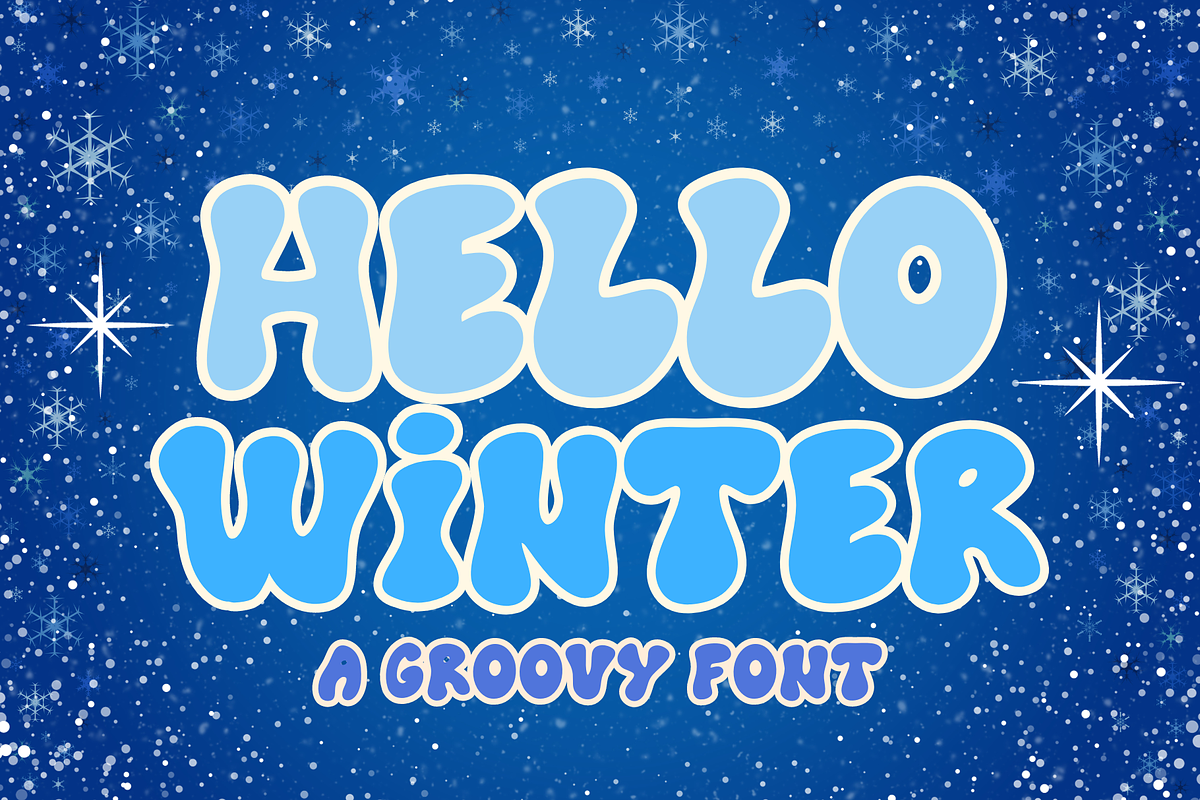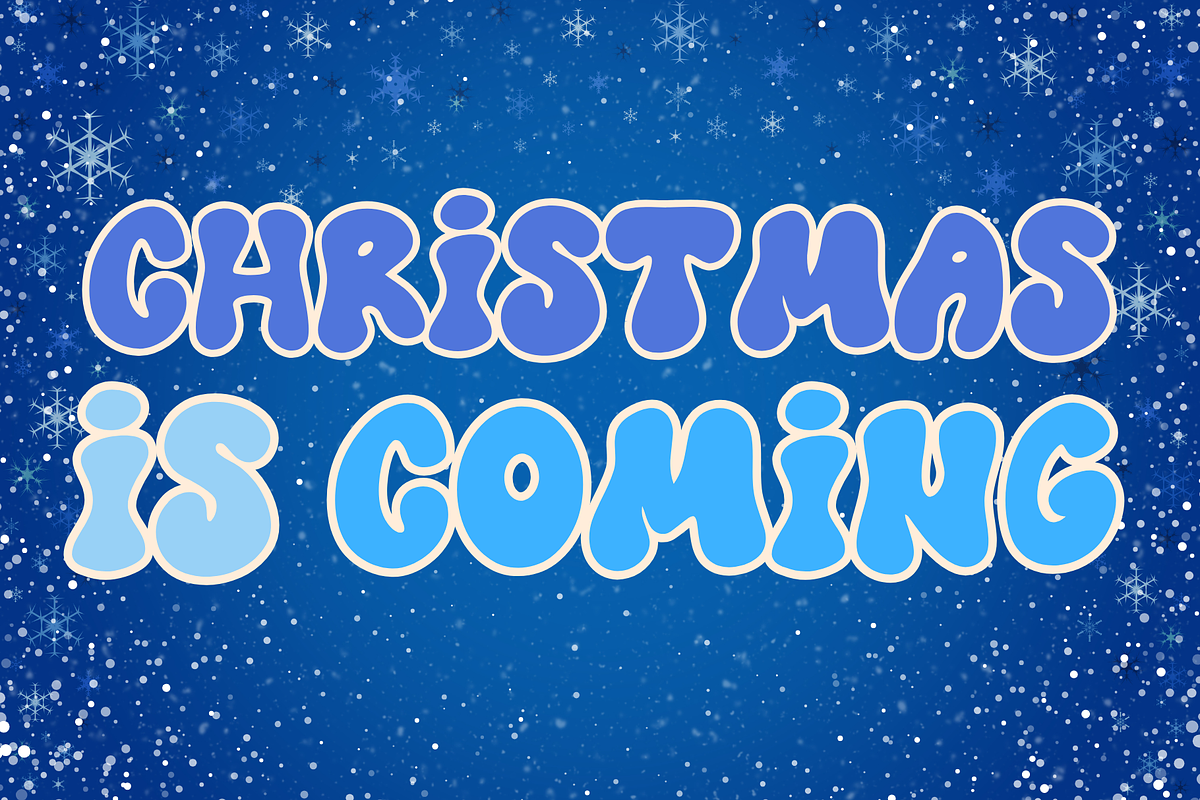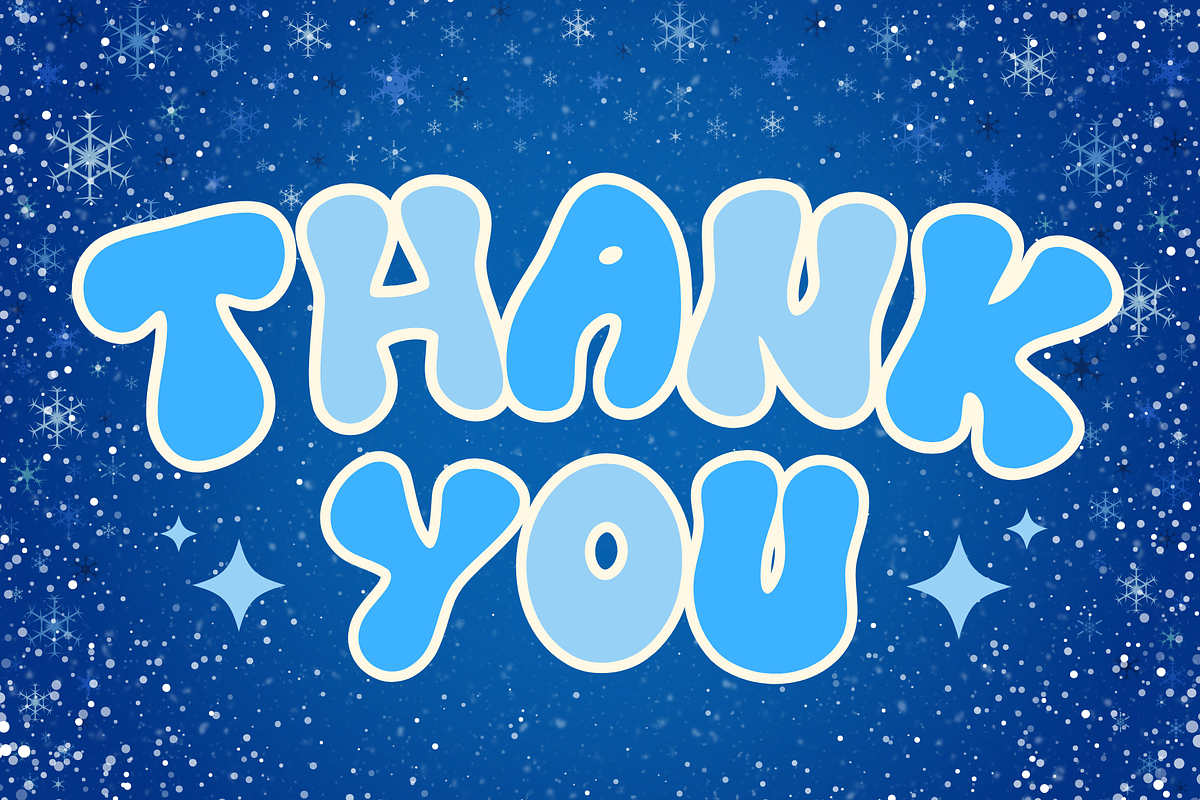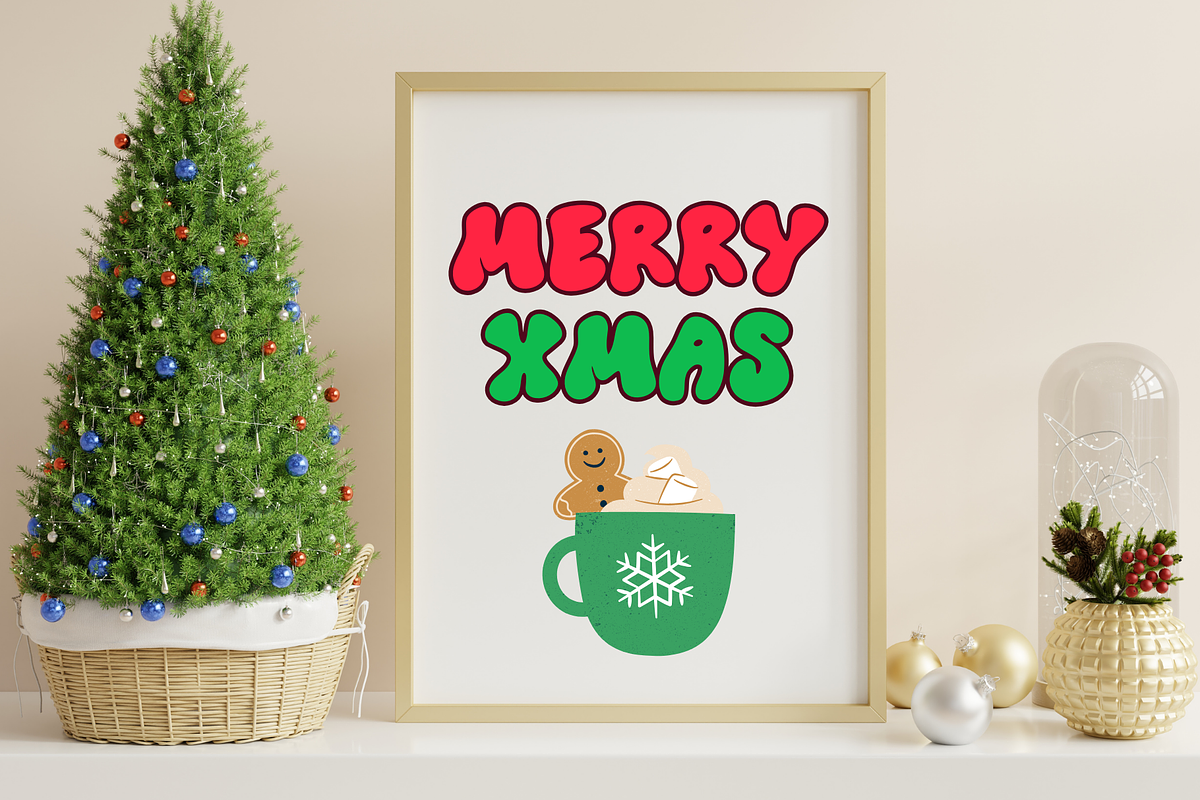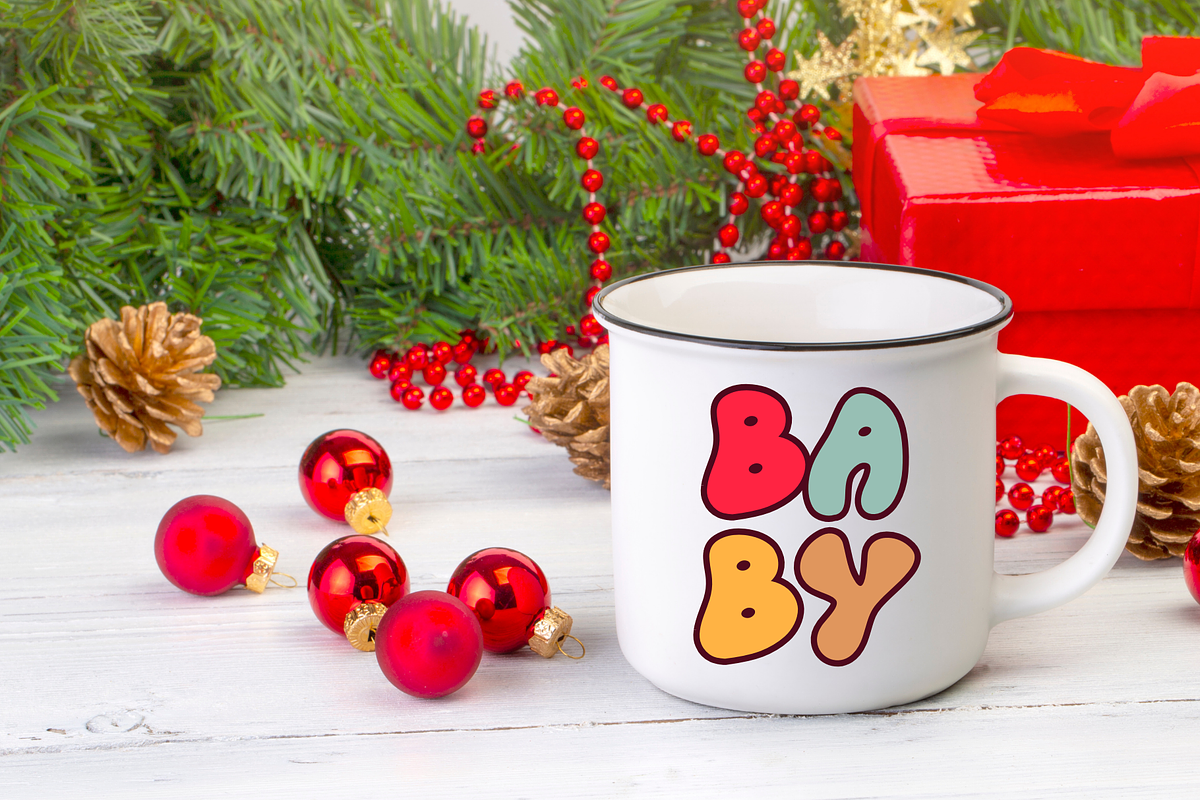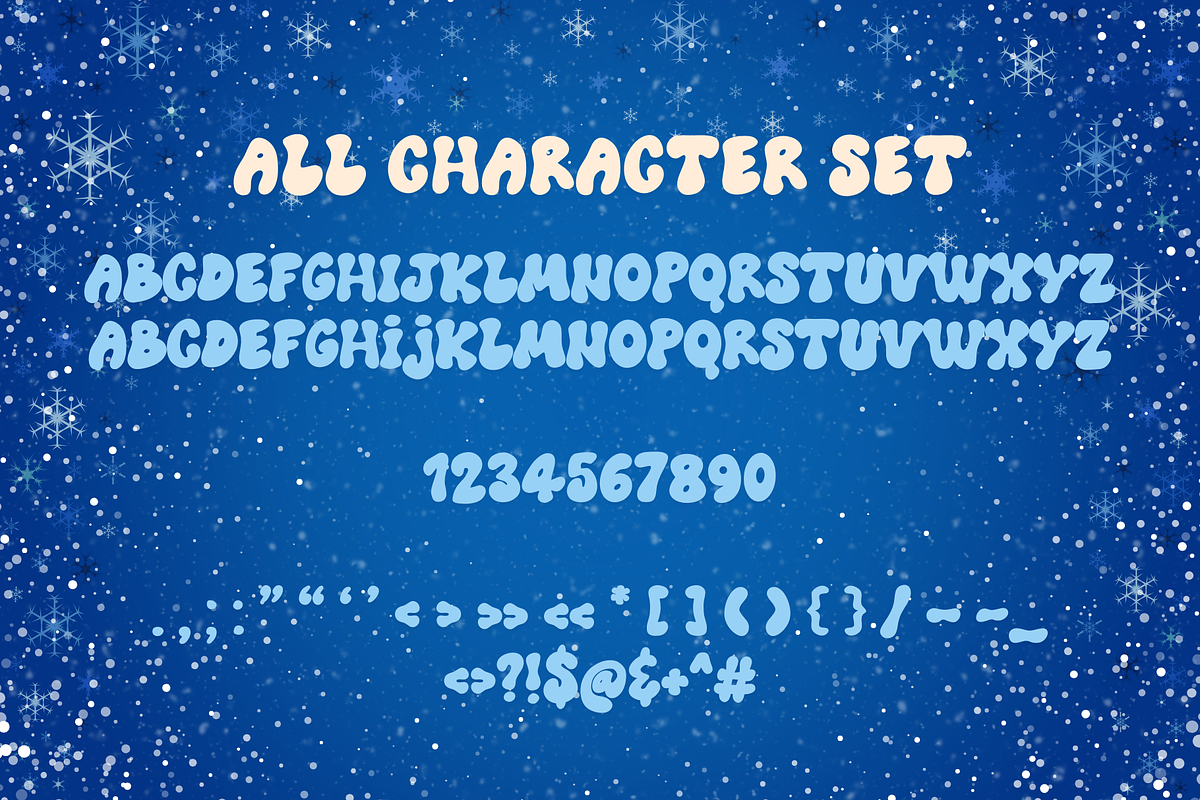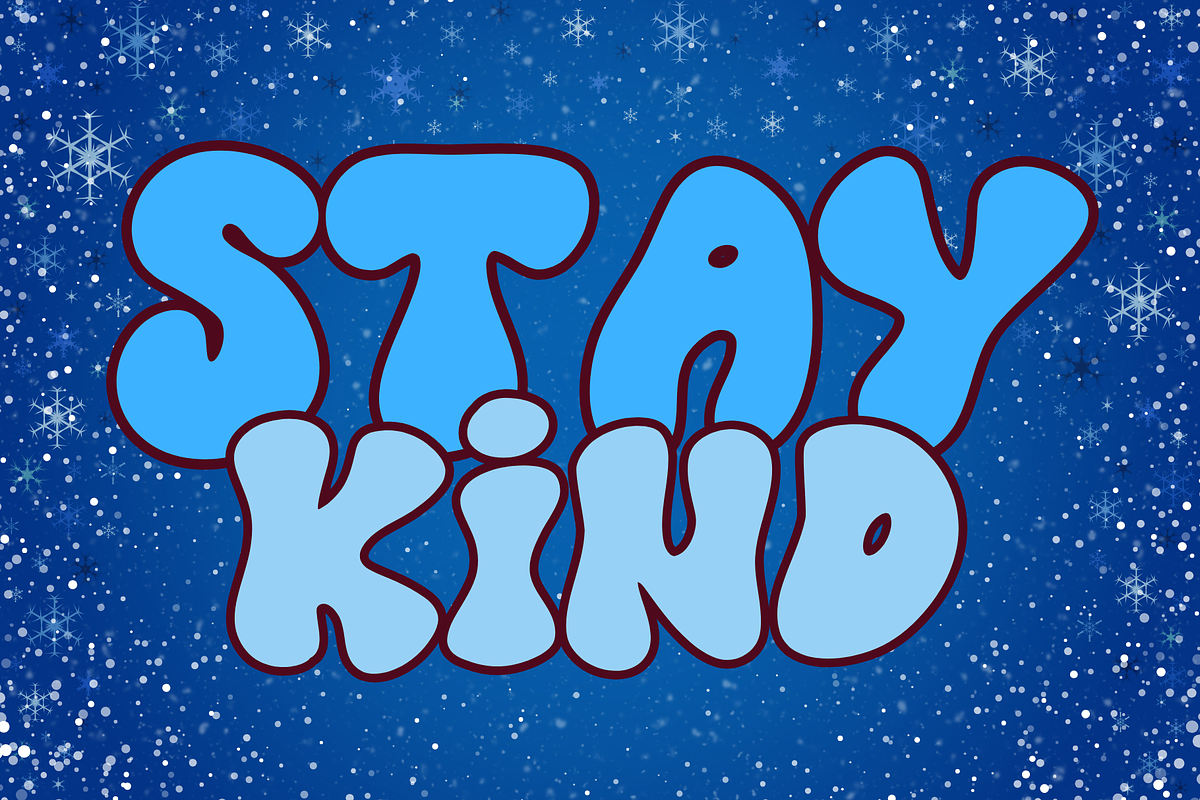
Hello Winter is a retro groovy font
Hello Winter is a retro groovy display font. It embodies playfulness and authenticity and is the perfect choice for all your favorite projects such as blog posts, logos, branding, ads, invitations, greeting cards, planners, photo albums, decorations, and more. Add it to any of your designs, and enjoy the results!